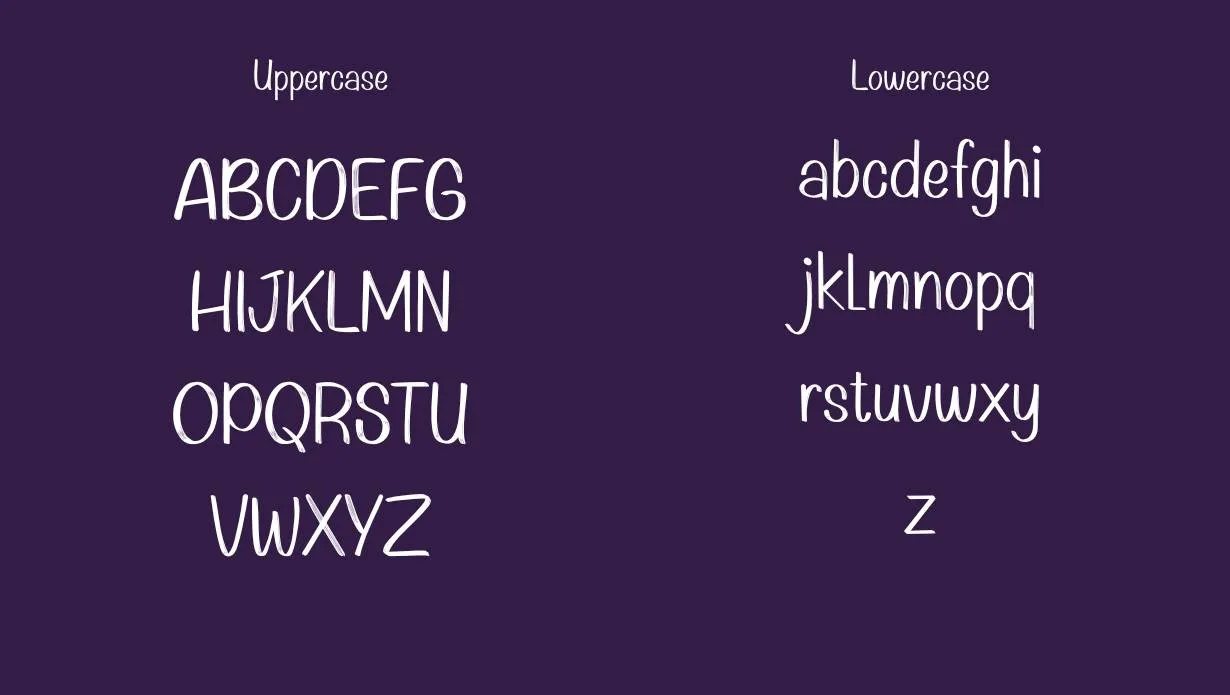
Procreate Font Free Download
Procreate Font has unique characteristics which made it worldwide famous in a short period. This unique typeface belongs to the Brush font family. This typeface comes in single regular weight.
View of Procreate Font
Procreate Font Info
| Name | Procreate Font |
| Designer | Sugeng Choirul |
| Style | Brush |